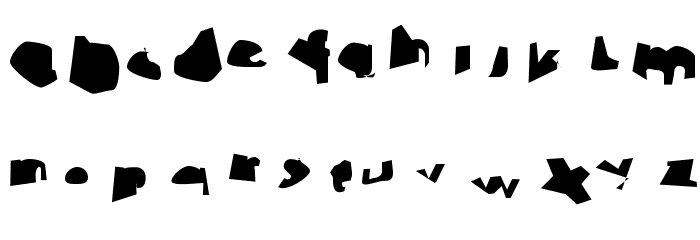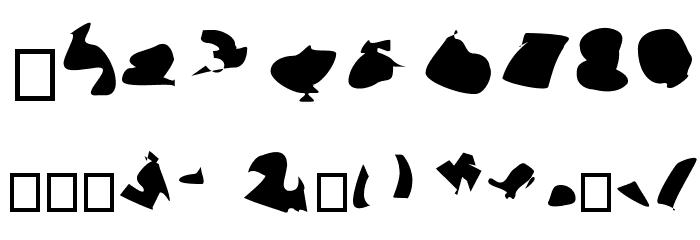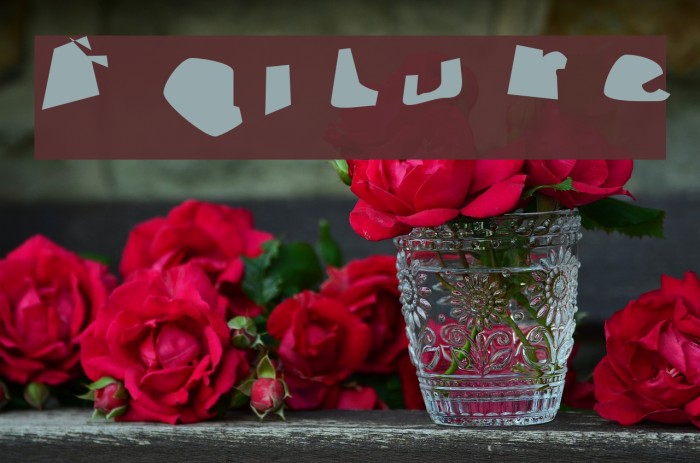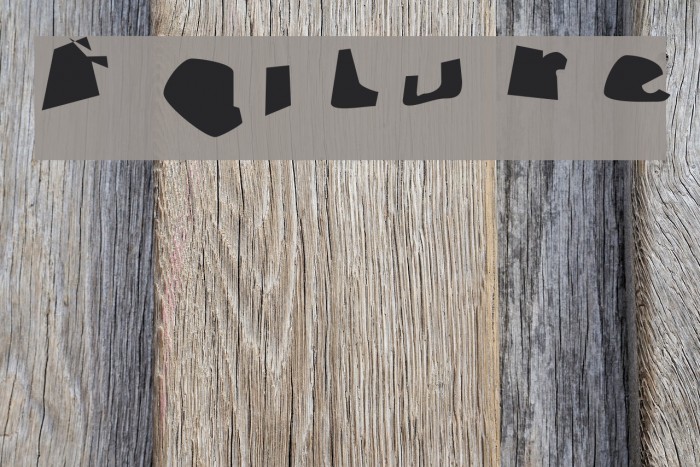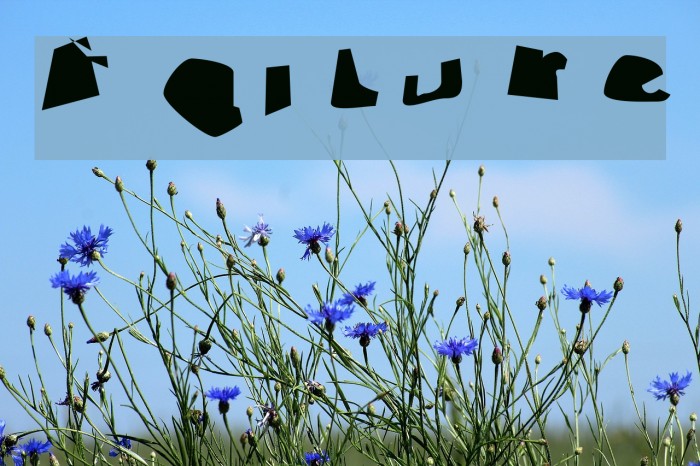
Failure Font
This font features a highly abstract and fragmented design, with each character appearing as if it has been shattered or broken apart. The letters are bold and irregular, with jagged edges and varying thicknesses, creating a chaotic and dynamic visual effect. The overall appearance is unconventional and artistic, making it stand out as a unique typographic choice. The numbers and special characters follow the same fragmented style, adding to the overall theme of disarray and creativity. This font is not suitable for readability but excels in making a bold visual statement.
A bold, fragmented font with an abstract and chaotic design.
- Proposed Projects: Ideal for artistic projects, album covers, posters, or any design requiring a bold and unconventional statement.
- Overall Style: Abstract, Artistic
- Use Case: Logos, Posters, Artistic Displays